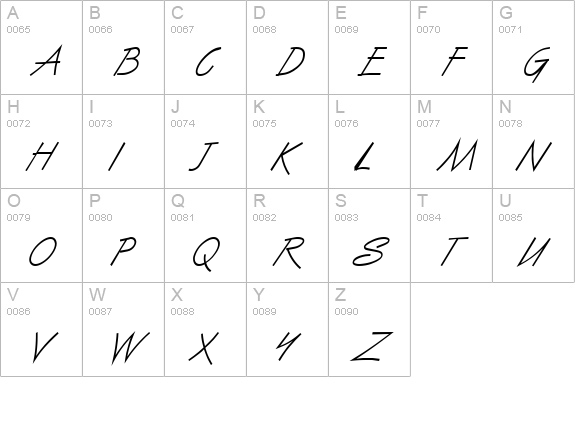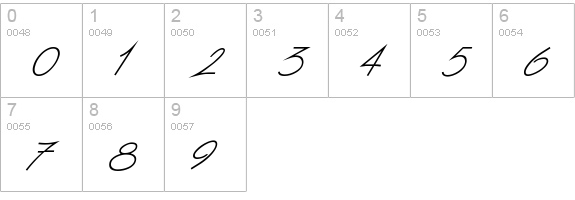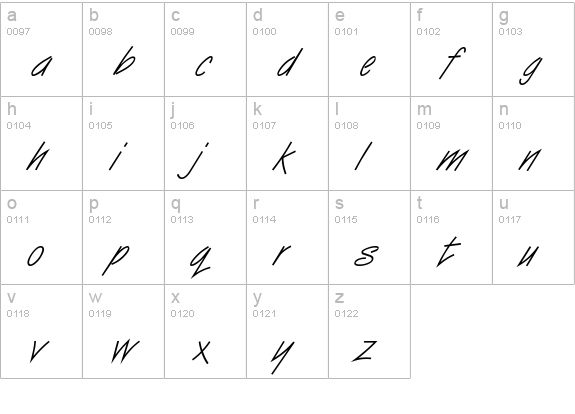
Vizier Italic is a distinctive, italic variant in the Vizier typeface family \xE2\x80\x94 well suited to design and typography projects.
Introducing Vizier Italic, a captivating and versatile font that effortlessly combines elegance with a touch of modernity. With its sleek and slanted letterforms, Vizier Italic adds a sophisticated and refined aesthetic to any design project. This exquisite typeface boasts a unique blend of classic and contemporary influences, making it the perfect choice for a wide range of applications. Whether you're designing a logo, creating a stunning headline, or crafting an eye-catching invitation, Vizier Italic is sure to make a lasting impression. What sets Vizier Italic apart is not only its impressive aesthetic appeal but also its accessibility. This remarkable font is available for free download exclusively at FontsMarket.com. Yes, you read that right - this exceptional typeface can be yours without spending a dime. So why wait? Elevate your designs with the timeless elegance of Vizier Italic. Download it today and unlock a world of creative possibilities. Whether you're a professional designer or a typography enthusiast, Vizier Italic is a must-have addition to your font collection. Make a statement with your next project by harnessing the power of Vizier Italic. Its graceful curves, precise detailing, and effortless legibility will captivate your audience and leave a lasting impression. Don't miss out on this incredible opportunity to enhance your designs with a high-quality, freely available font. Download Vizier Italic now and let your creativity soar.